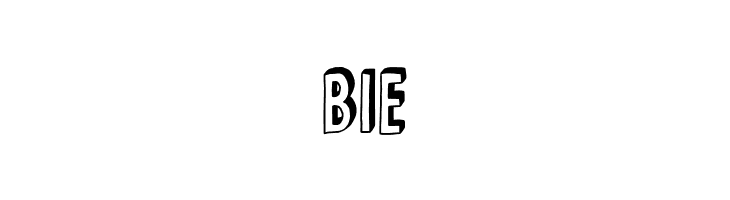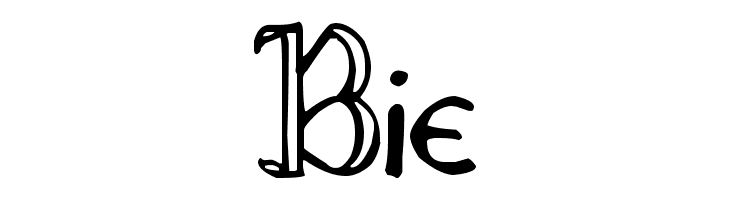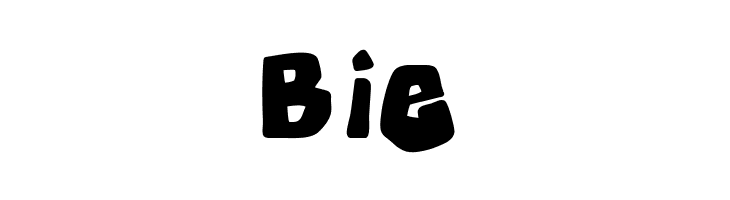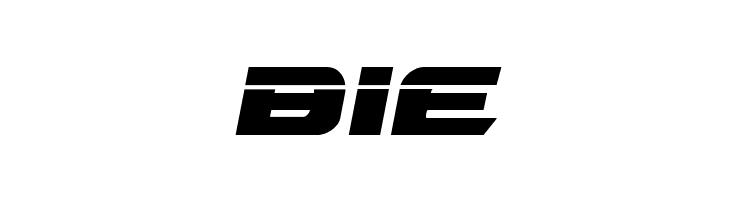
A playful handwritten font with elegant curves and loops.
A playful, rounded font with smooth curves and a friendly appearance.
A playful, bold, hand-drawn font with outlined characters.
A tall, narrow serif font with pronounced serifs and elegant styling.
A lively, handwritten font with fluid strokes and a playful, informal style.
An ornate and decorative font with intricate details and a whimsical touch.
An elegant script font with flowing, cursive letters and sophisticated style.
A casual, handwritten font with a playful and informal style.
A bold, playful font with a hand-drawn, quirky style.
A bold, futuristic font with angular edges and a dynamic slant.